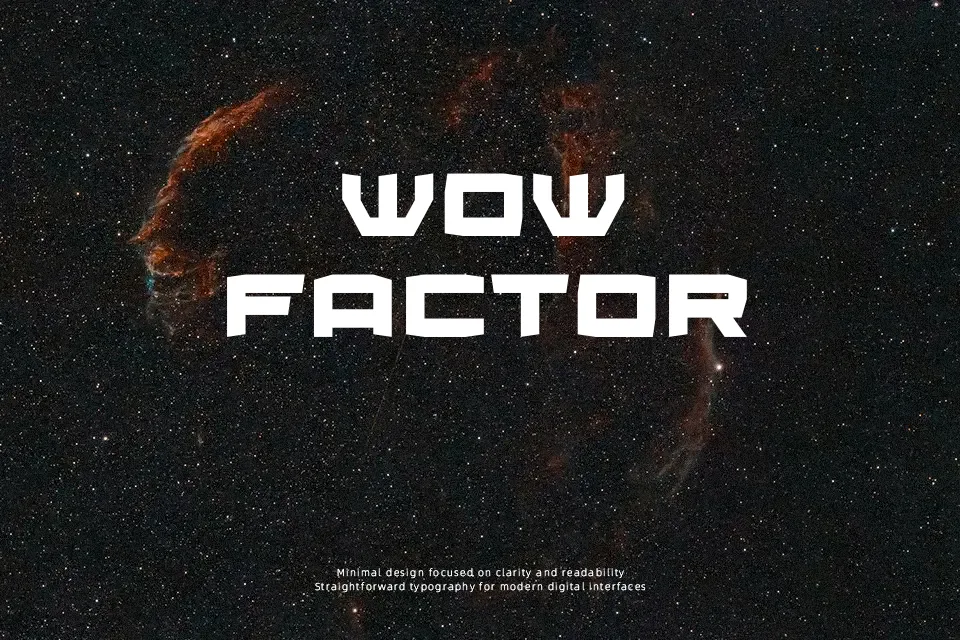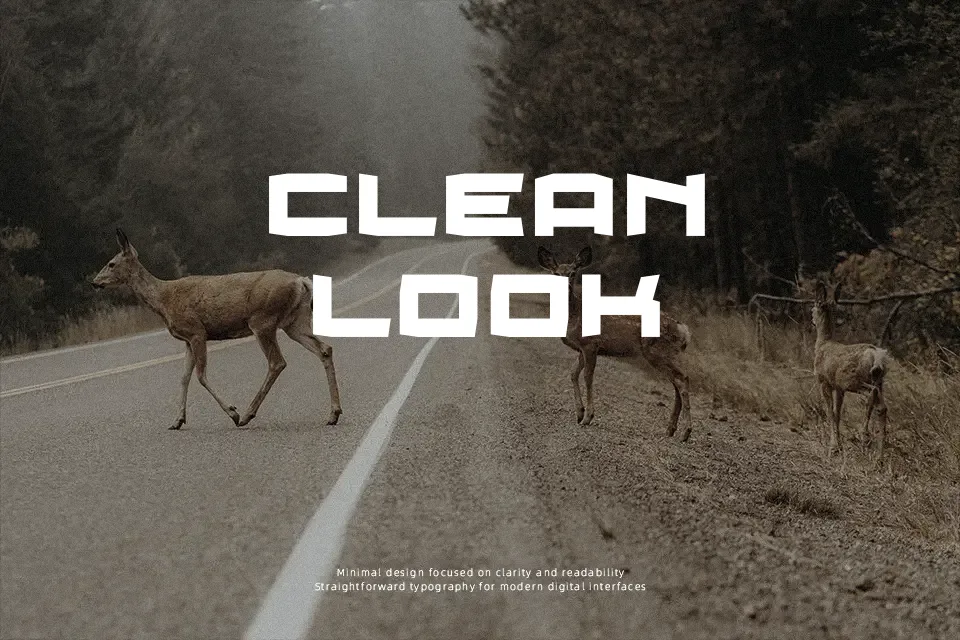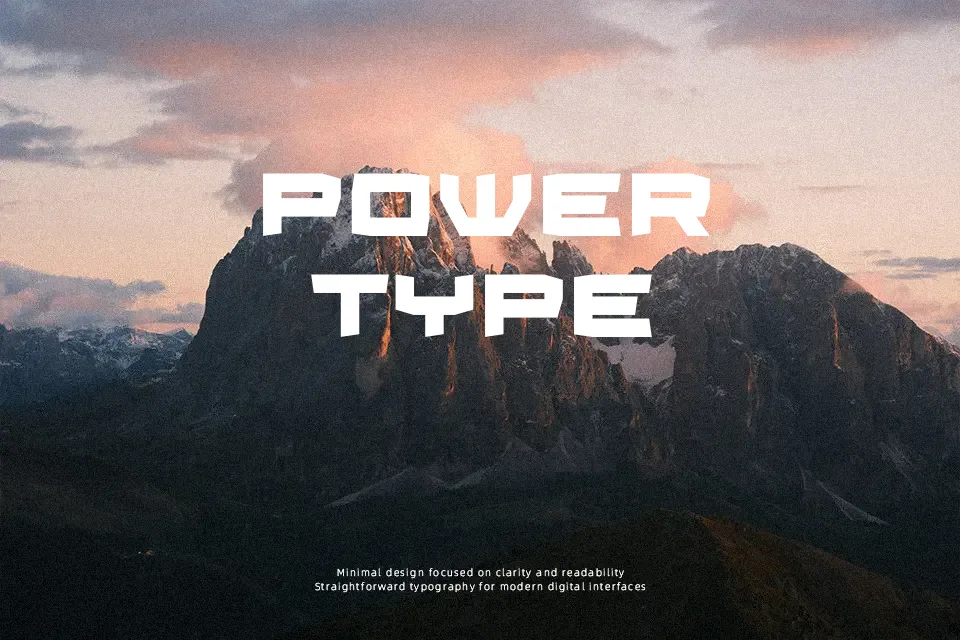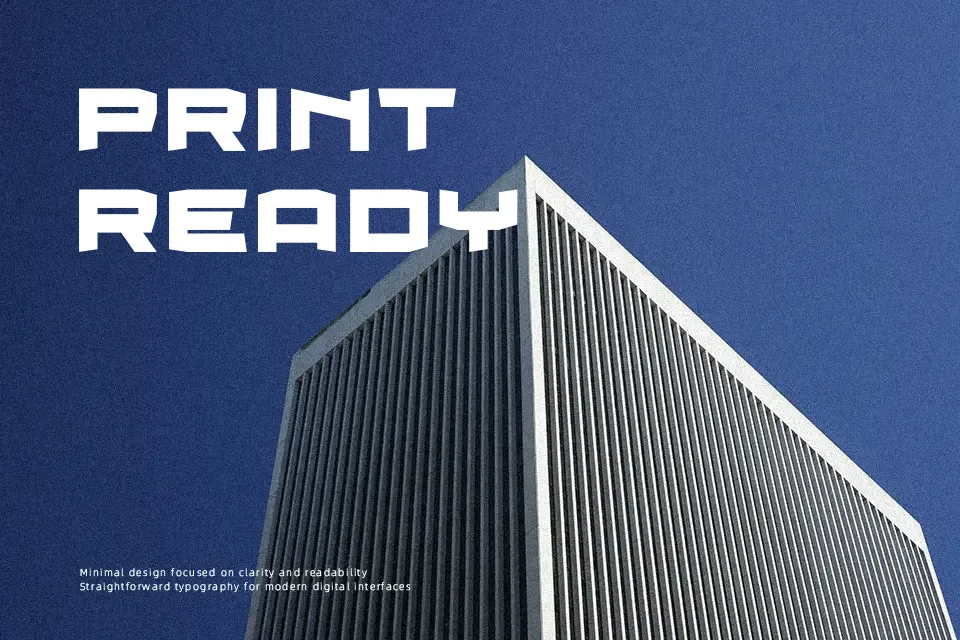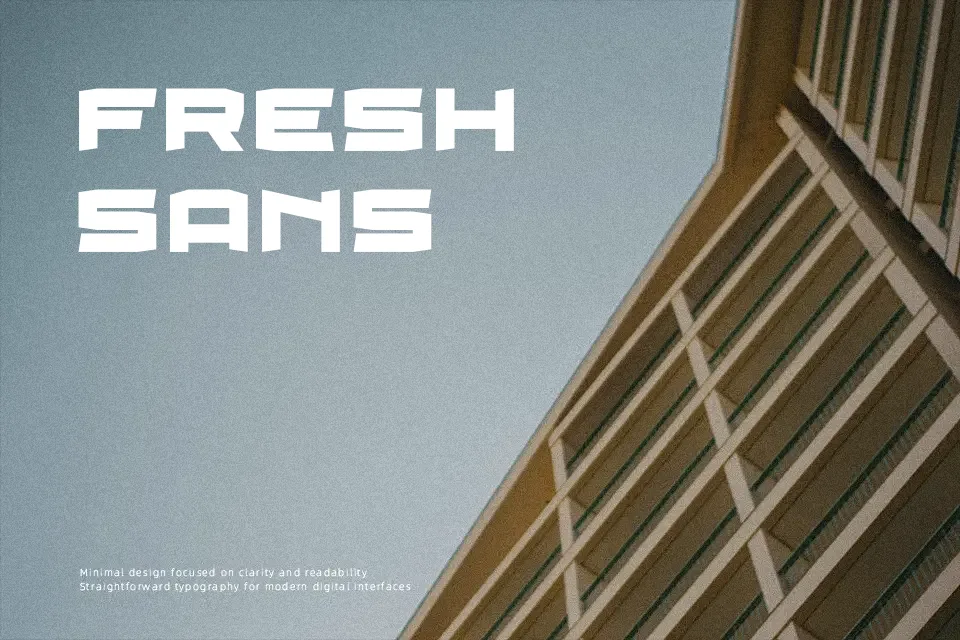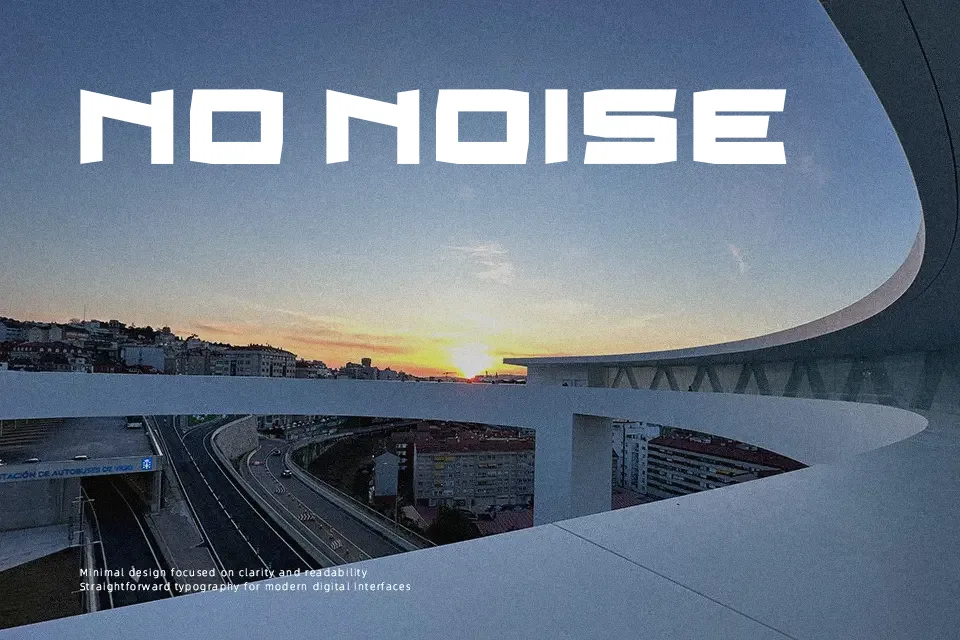
Termit Font
Termit Font presents a blocky display construction marked by heavy squared strokes, minimal internal counters, and crisp angular corners. Spacing is intentionally compact, creating a solid horizontal rhythm across all-caps headlines and title graphics. While these dense forms deliver tremendous impact in prominent focal positions, the limited counter space impairs legibility in extended text settings. The design excels when deployed for high-energy display arrangements rather than dense paragraphs.
Best For: esports tournament branding, gaming title screens, action movie posters, tech packaging graphics
Not Ideal For: long body text, dense mobile interface labels, formal editorial layouts, multi-page document reading
Perfect for gaming, headline, and logo, with a bold and display style.